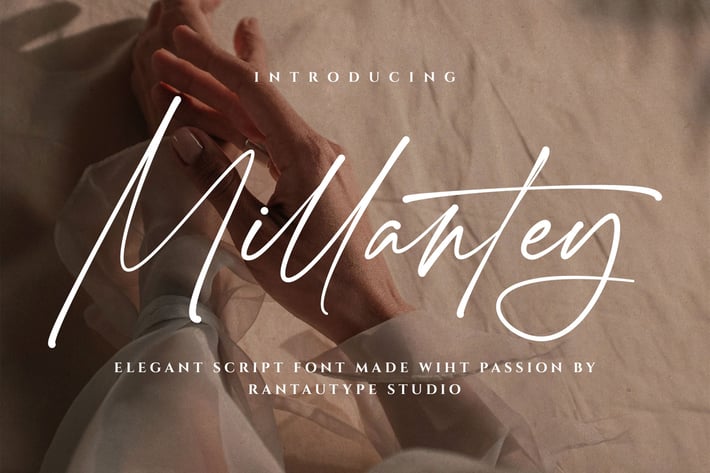
Millantey Elegant Script Font
Millantey is elegant script font embrace grace and feminity. Millantey come with stylish character to create your design project stand out! Millantey is a professional choice for any creative endeavor, creating elegant, modern, chic, lifestyle design such as logotype, title, cover, branding, invitations, wedding designs, display and magazine, social media posts, advertisements, printed quotes, product packaging, corporate brand, product designs, labels, photography, watermarks, special events and any other project with handwritten touch.
Standart Glyphs
Alternate and Ligature